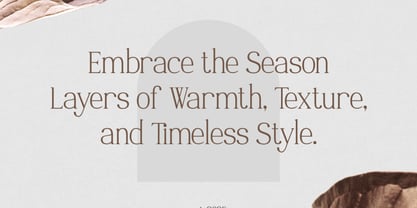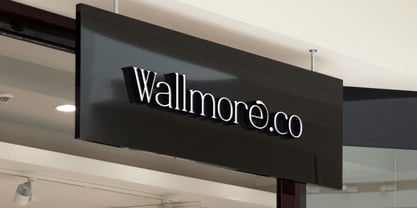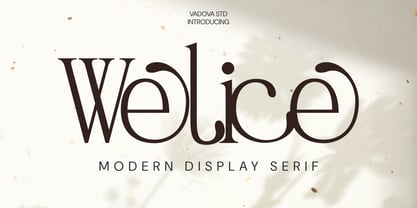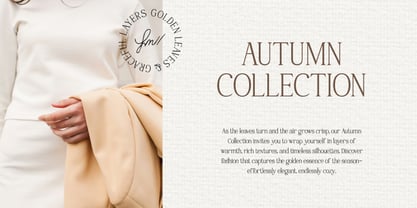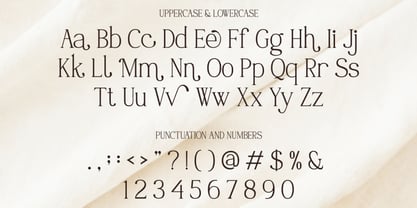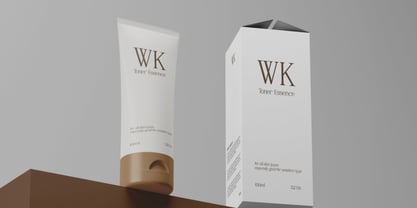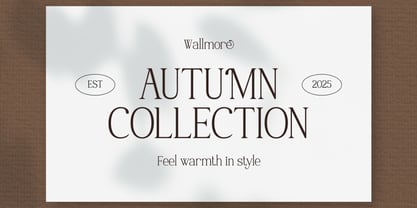
Welice
von Vadova Std
Die Schriftfamilie Welice entworfen und von Vadova Std veröffentlicht. Welice enthält 1 Stile. Mehr über diese Familie
Wallmore is a modern display serif font that blends timeless sophistication with contemporary flair. Featuring refined curves, unique ligatures, and multilingual support, it’s designed to elevate branding, fashion editorials, advertising campaigns, and seasonal collections. Perfect for elegant headlines and high-end design projects, Wallmore brings a polished, professional feel to any visual identity with its stylish, clean serif structure.